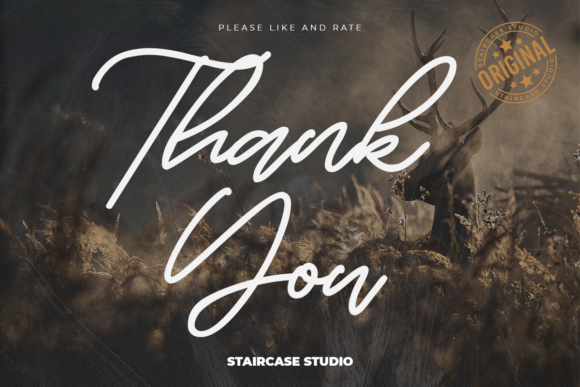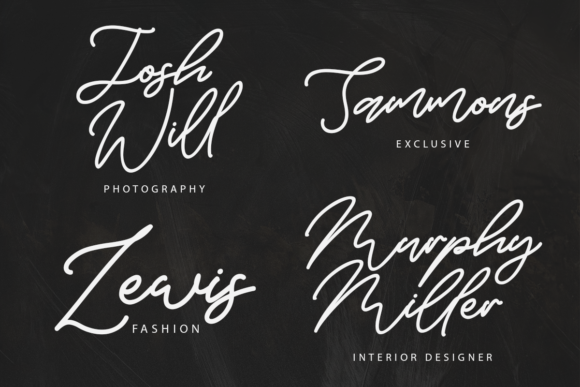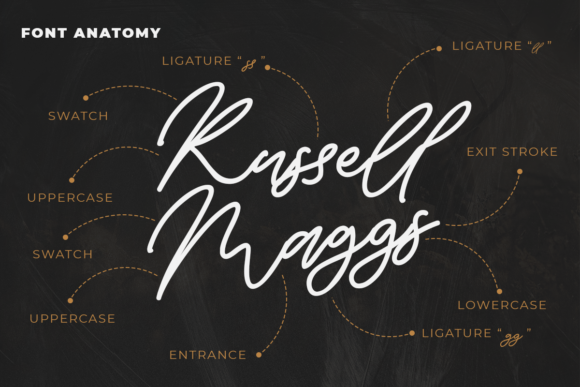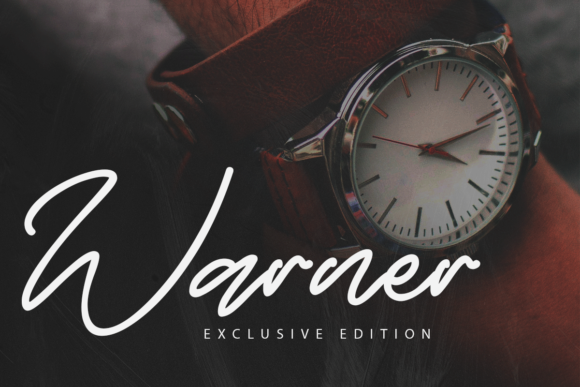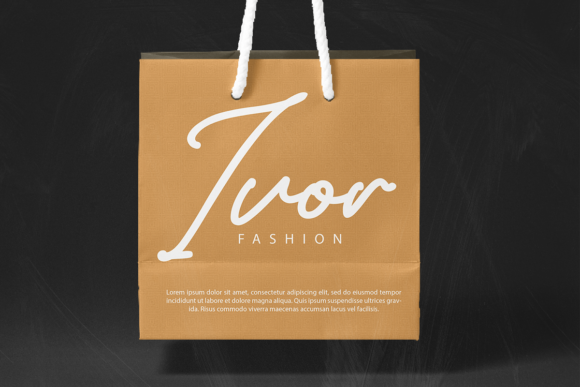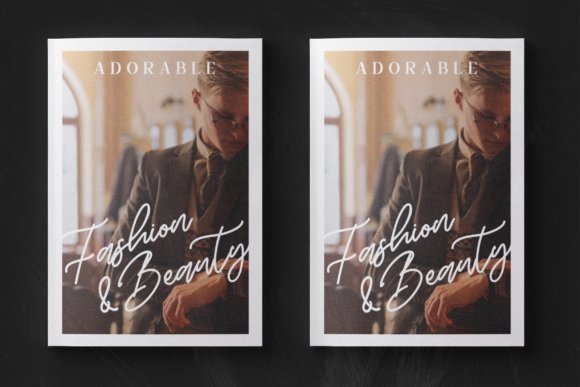
Bryan Coyne Font
About Bryan Coyne Font
Bryan Coyne is a lovely and timeless handwritten font. It is the best choice for creating eye catching logos, branding and quotes. Every letter has a unique and beautiful touch, which will make your design come alive!